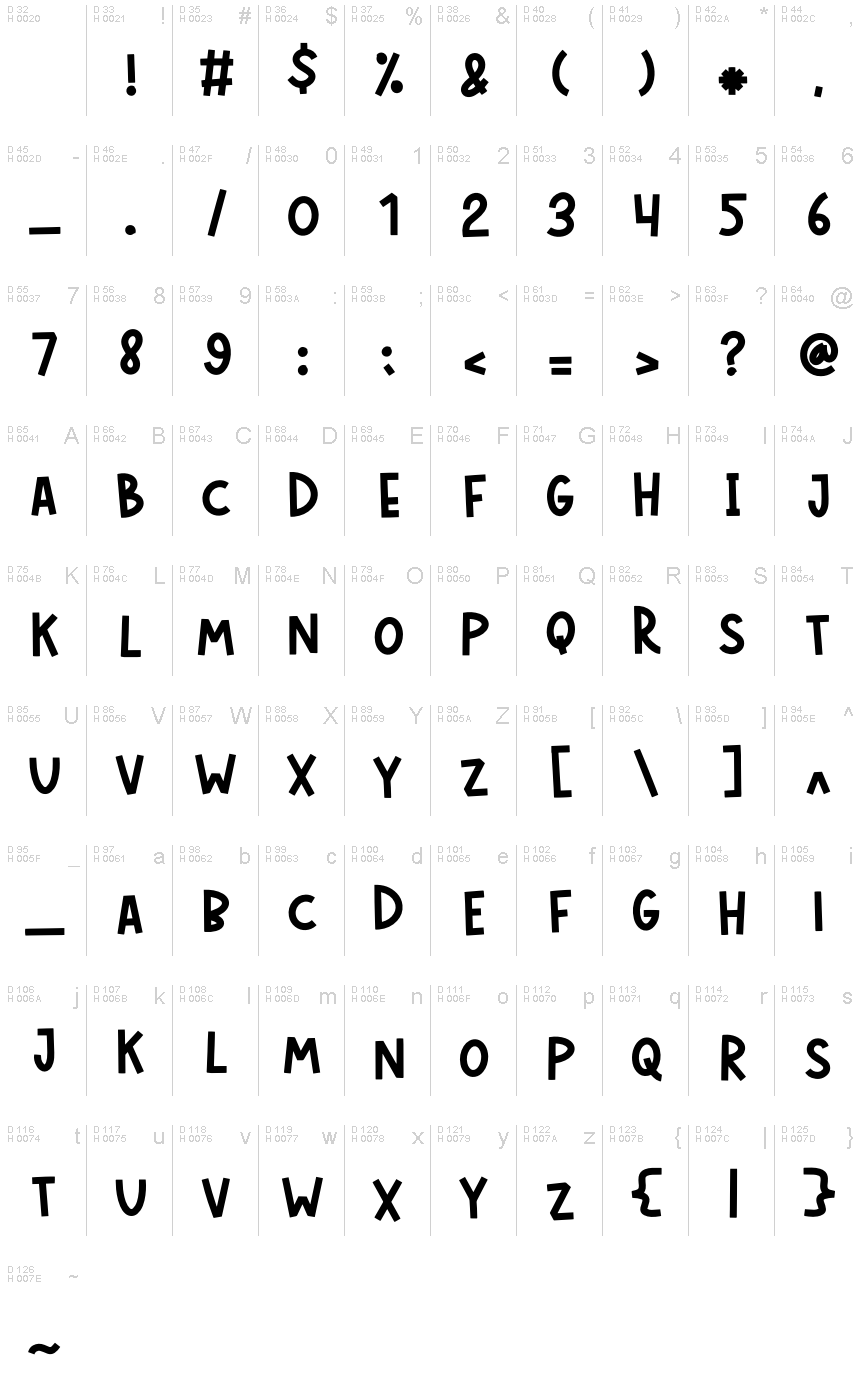
LONELY BOYS
Lonely Boys leaps off the page with a playful spirit, thanks to its cartoonish flair crafted by The Docallisme - Amry Al Mursalaat. This display font bursts with personality; its hand-drawn quality and irregularities inject life and character into each letter. With bold strokes and an informal vibe, Lonely Boys is perfectly suited for projects that aim to be lighthearted and approachable.
This font shines in contexts that call for a touch of whimsy—think children's books, fun branding, quirky advertisements, or any creative endeavor that benefits from a casual, friendly touch. Its distinctive charm ensures it stands out in a sea of conventional typefaces, making it an excellent choice for designers looking to infuse their work with energy and warmth.